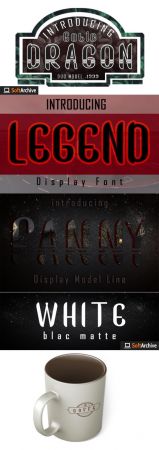
Gotic Dragon is a bold yet casual display font with an undeniably clean feel. With its neat and beautiful arrangement of letters, this typeface will look outstanding in both formal and non-formal designs.